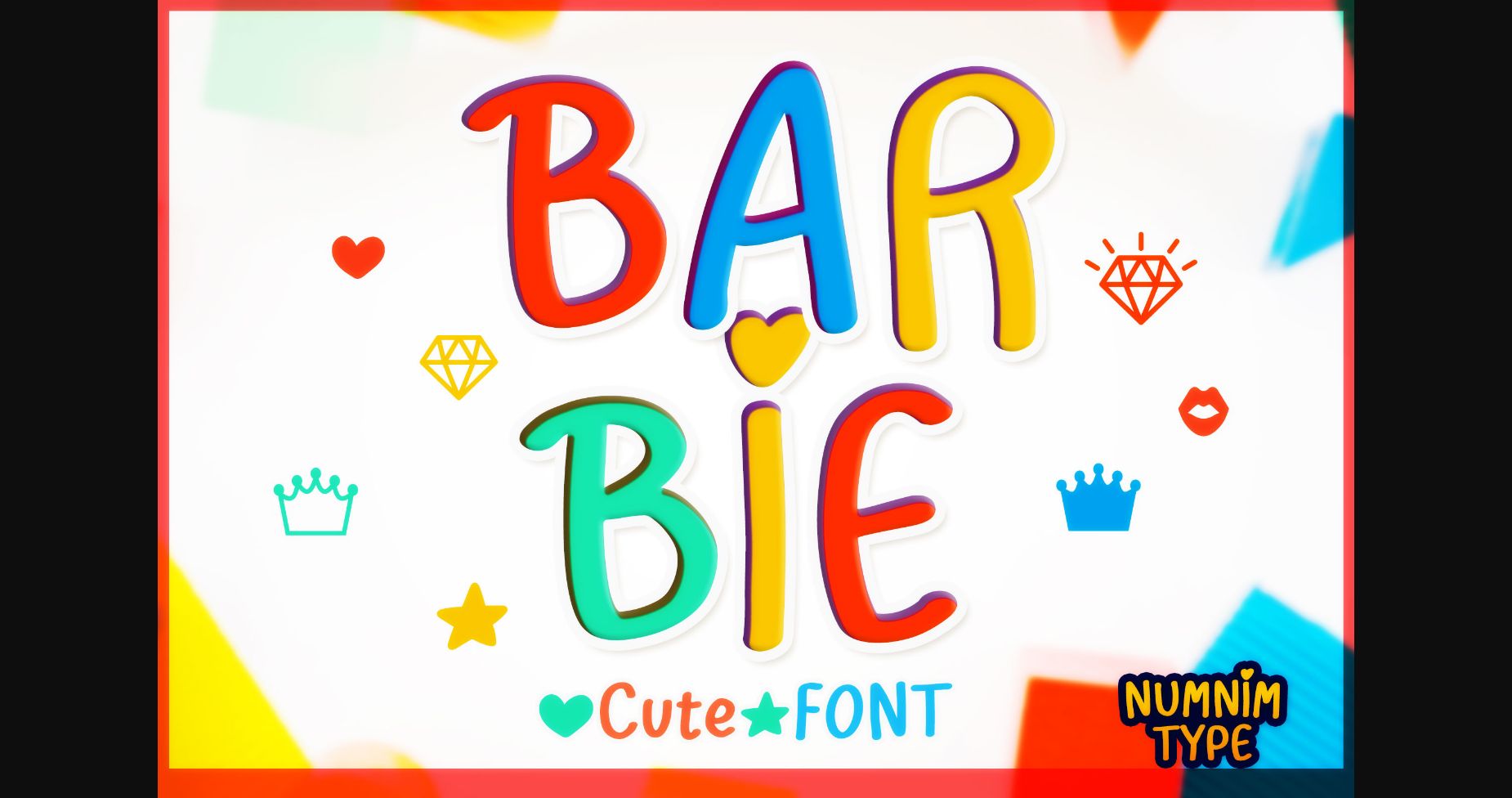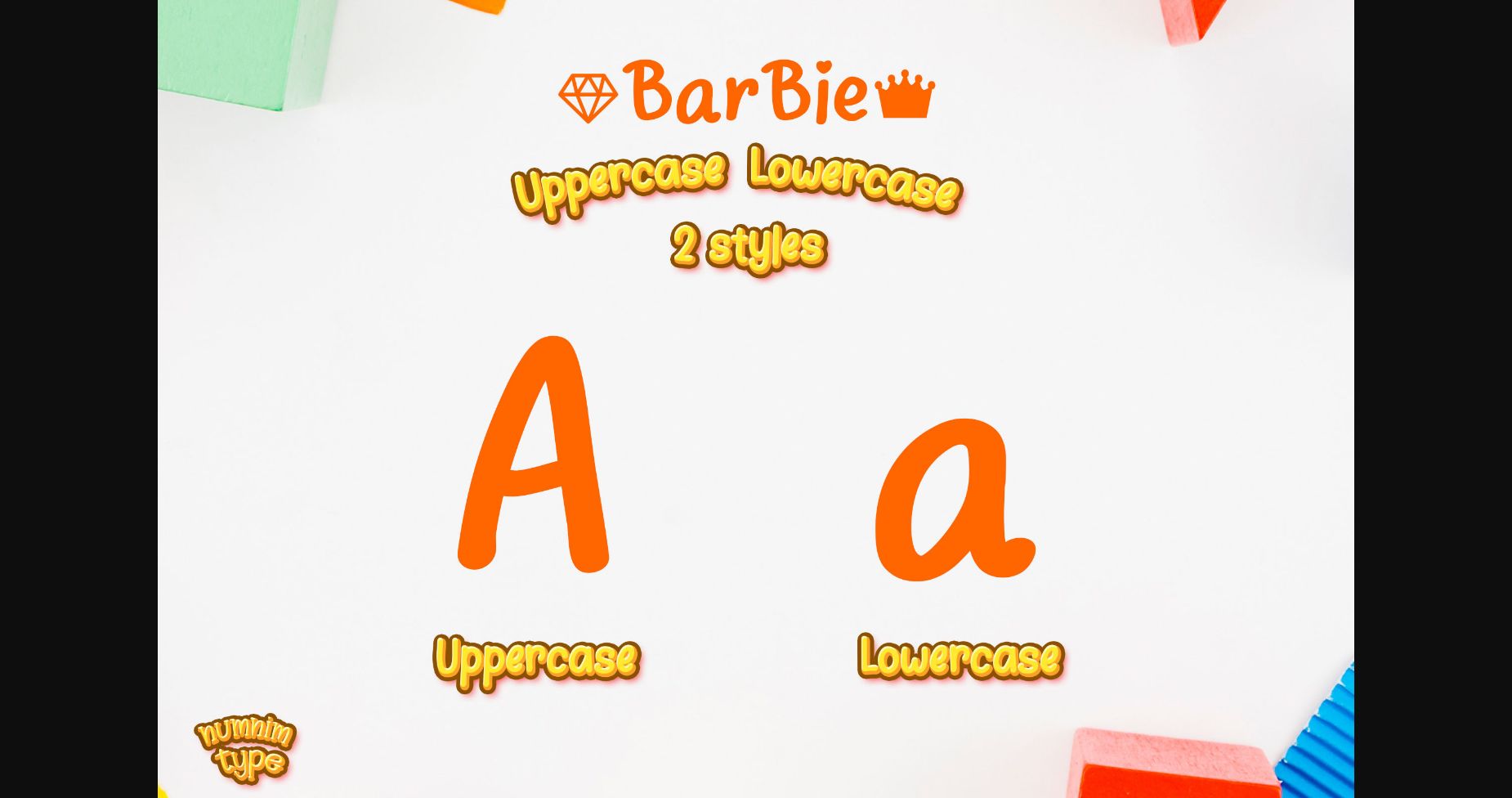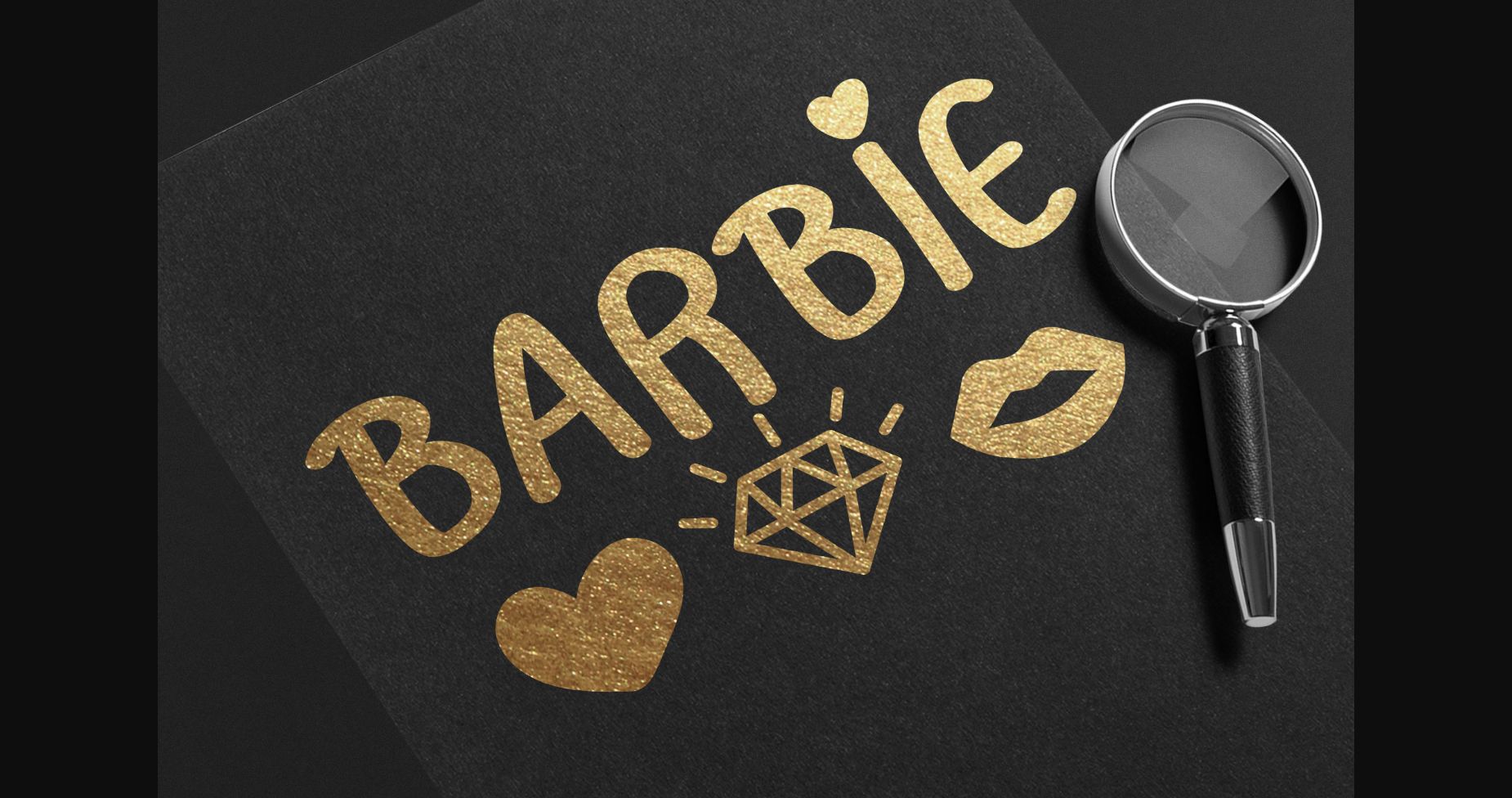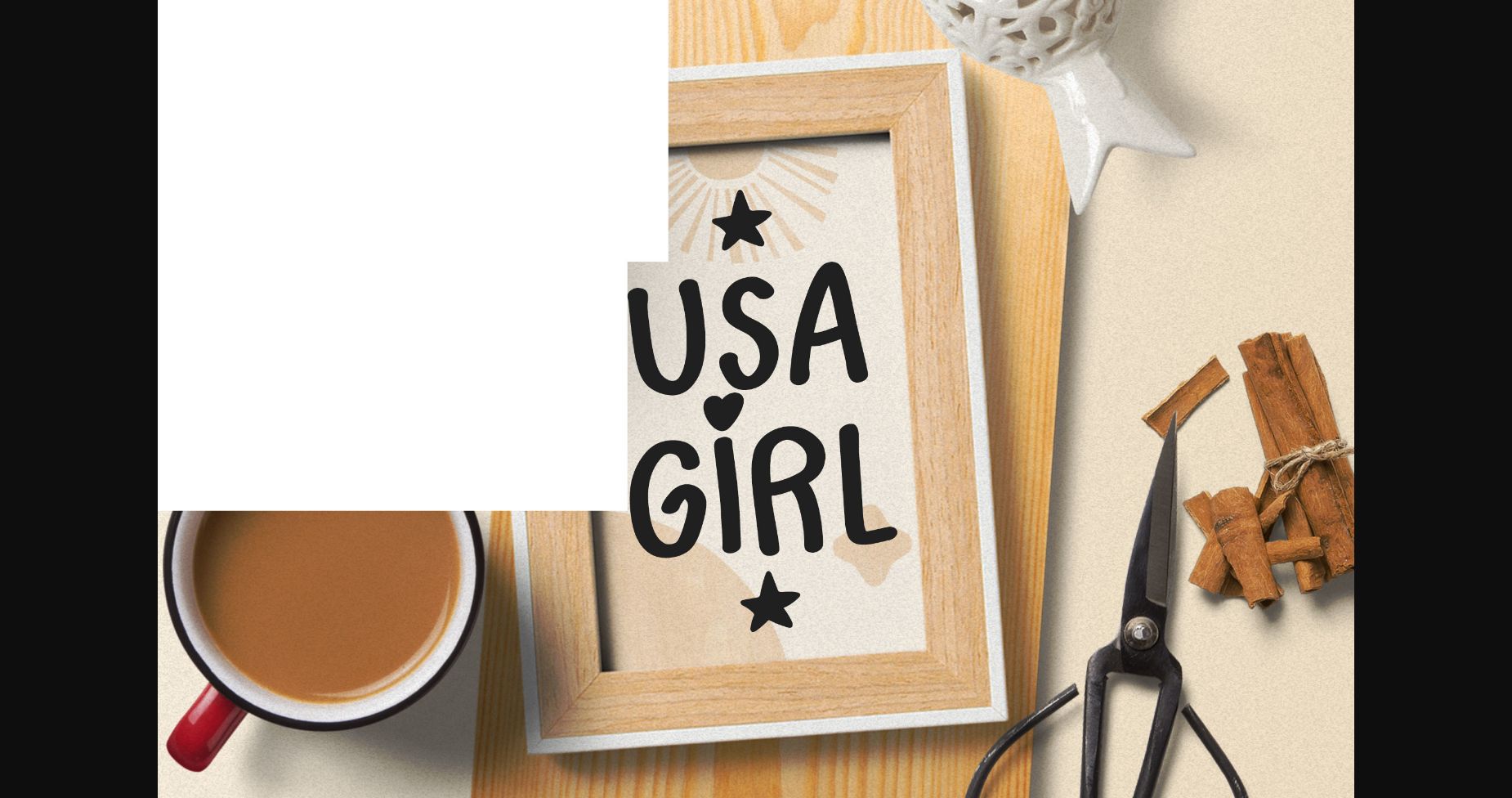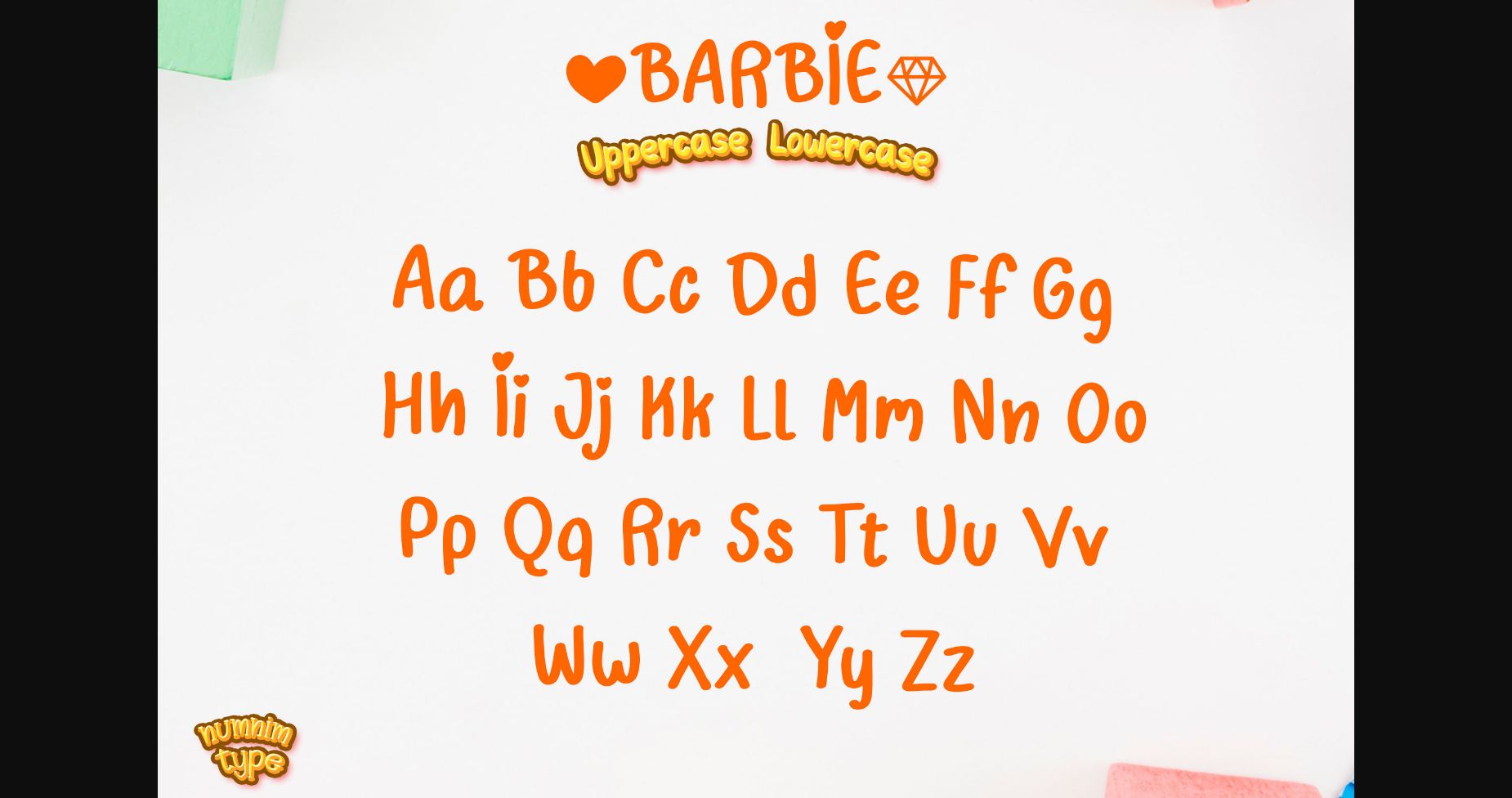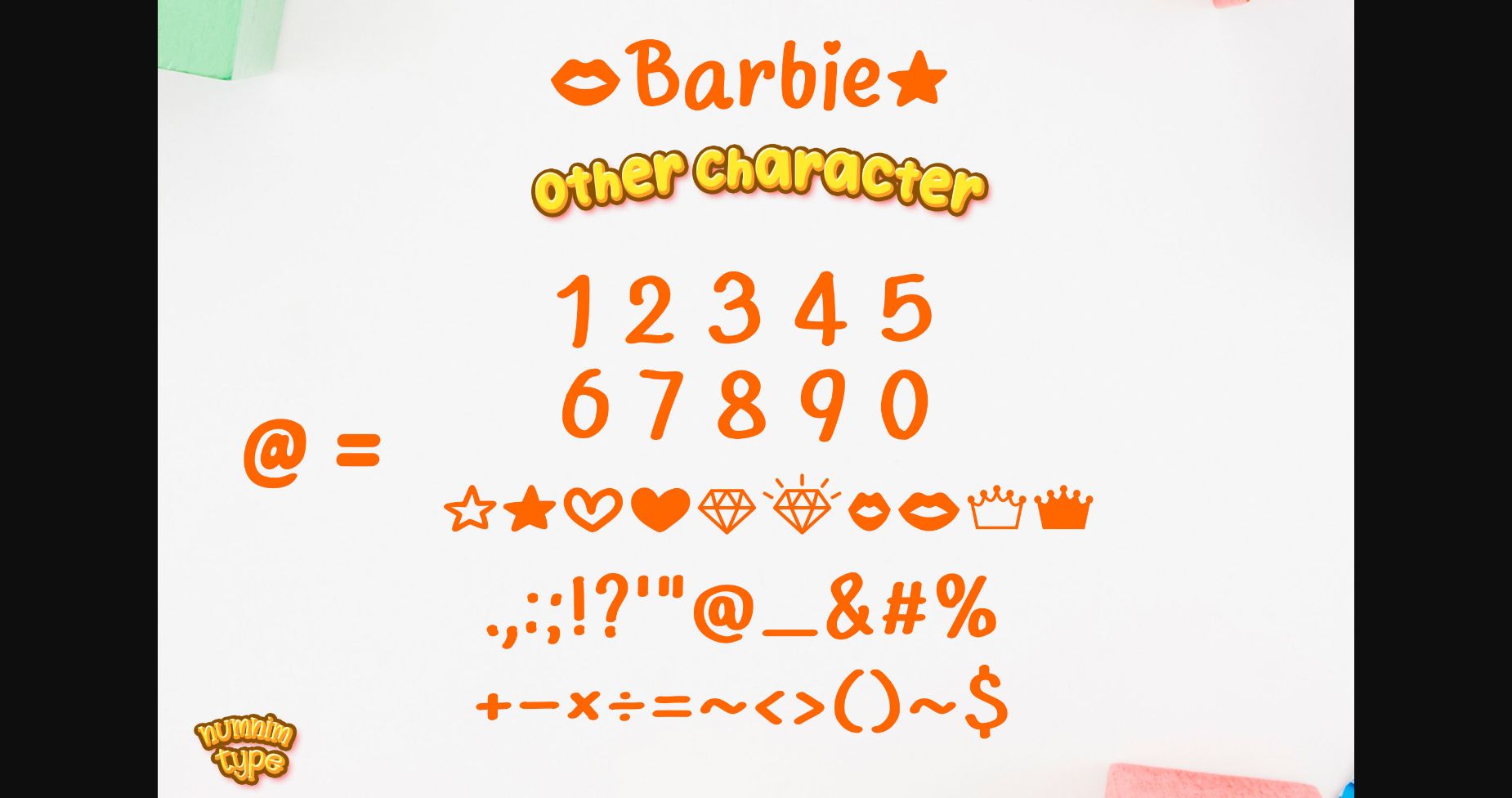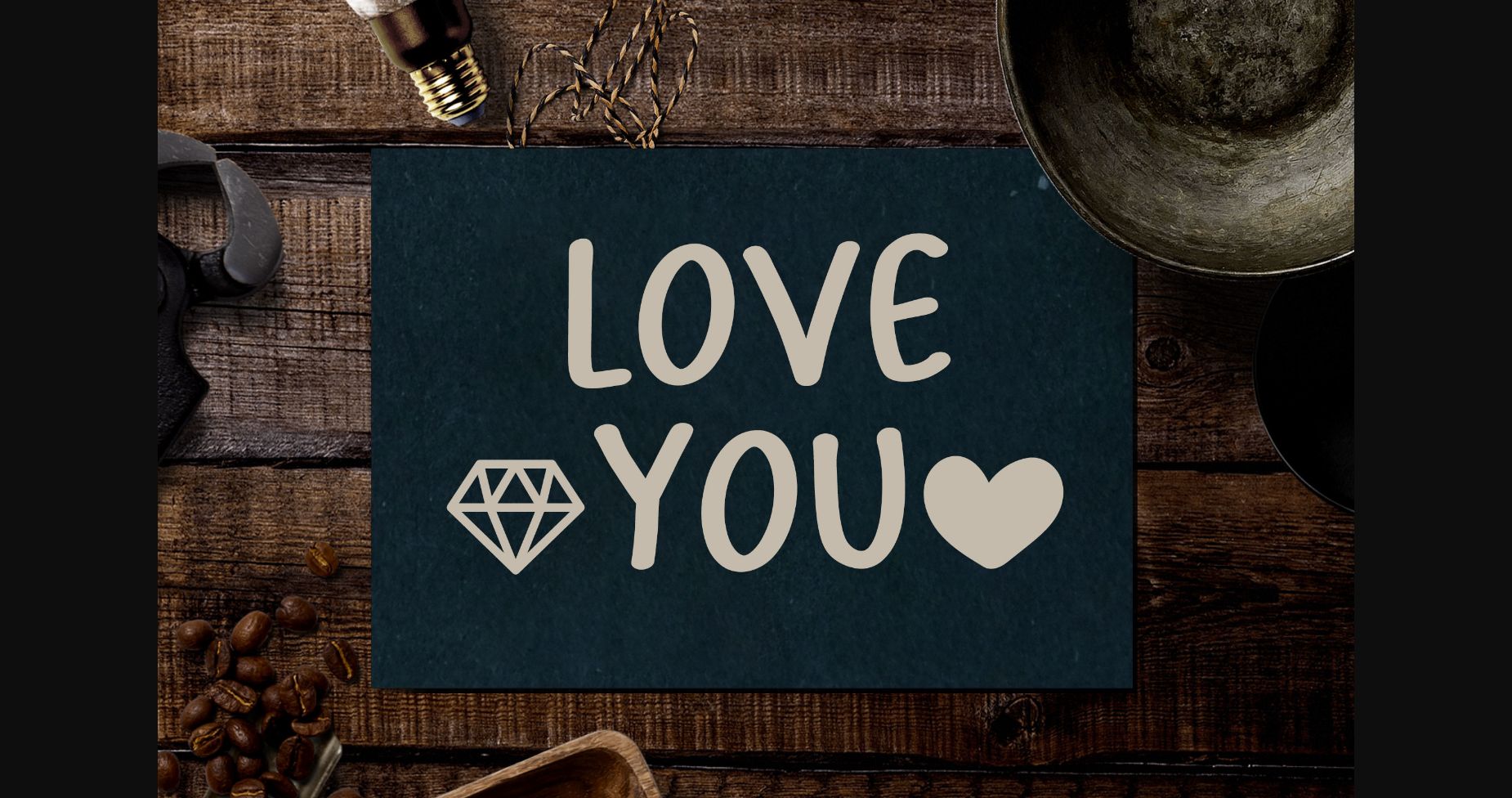
Barbie Font
About Barbie Font
Barbie is a Sans Serif font with a vibrant, joyful feel. Its fun and playful characters make it the perfect font for stickers, mugs, t-shirts, ornaments, Girl event cards, and more! This font is PUA encoded, so you can easily access all glyphs and swashes!